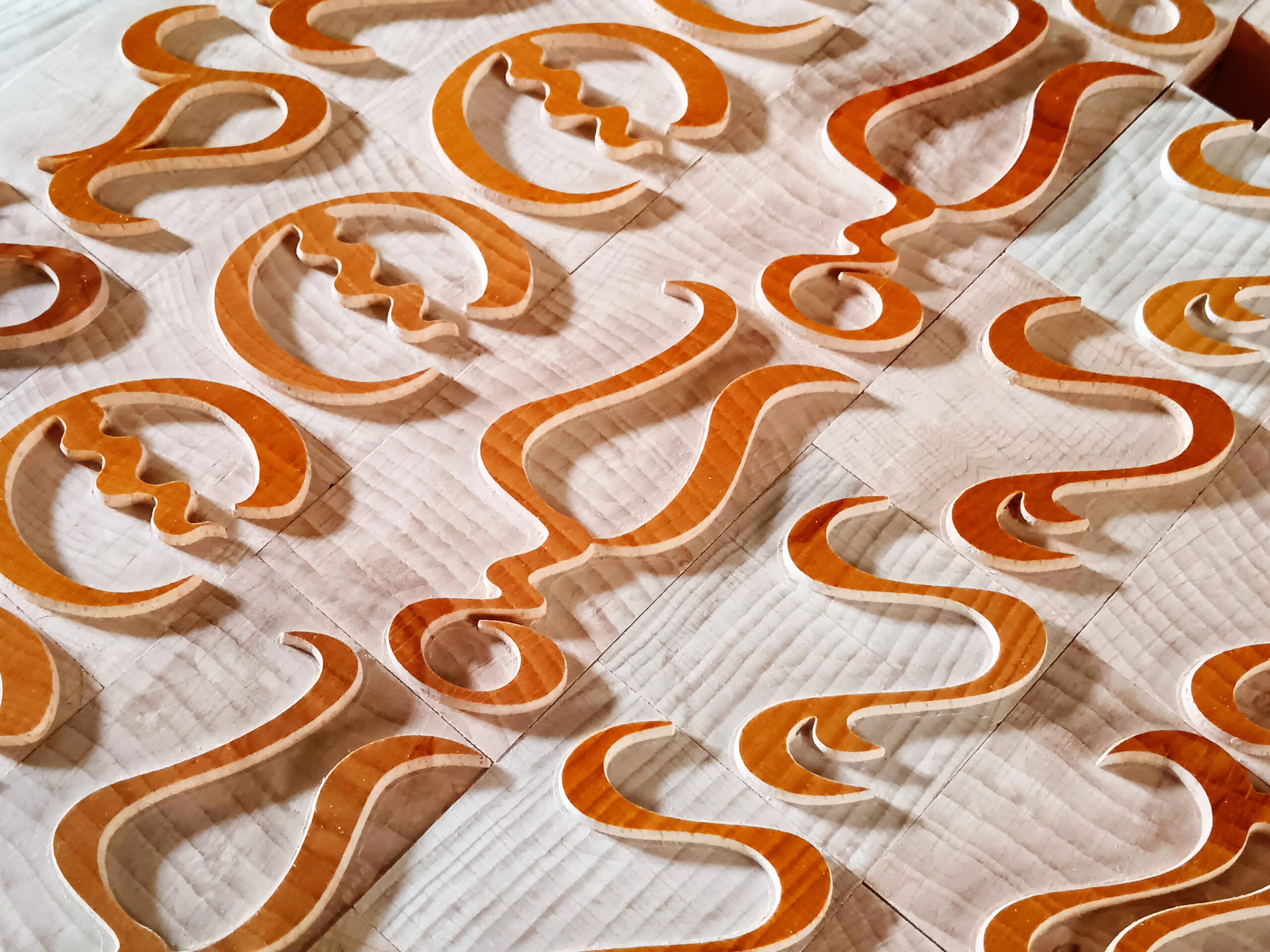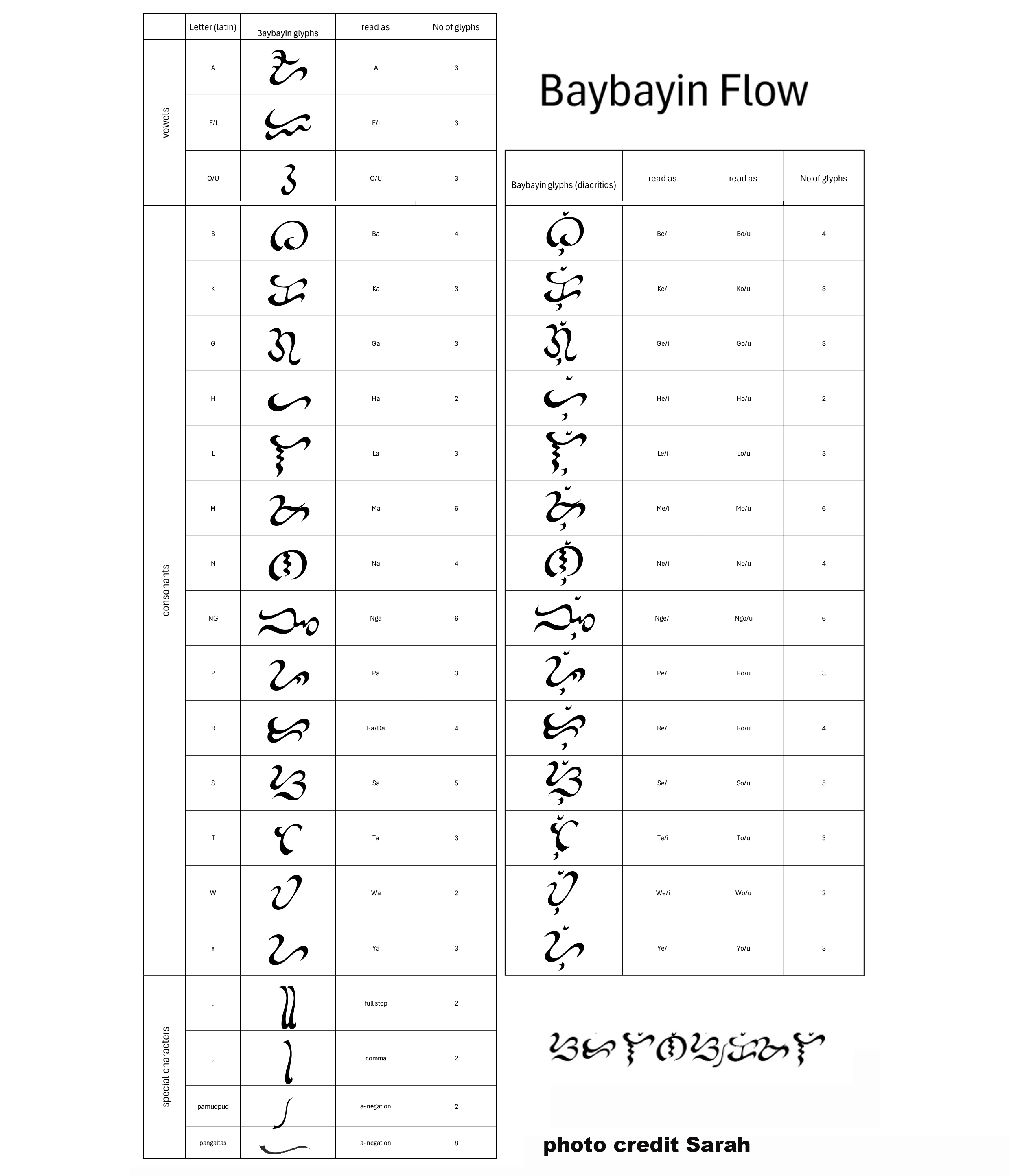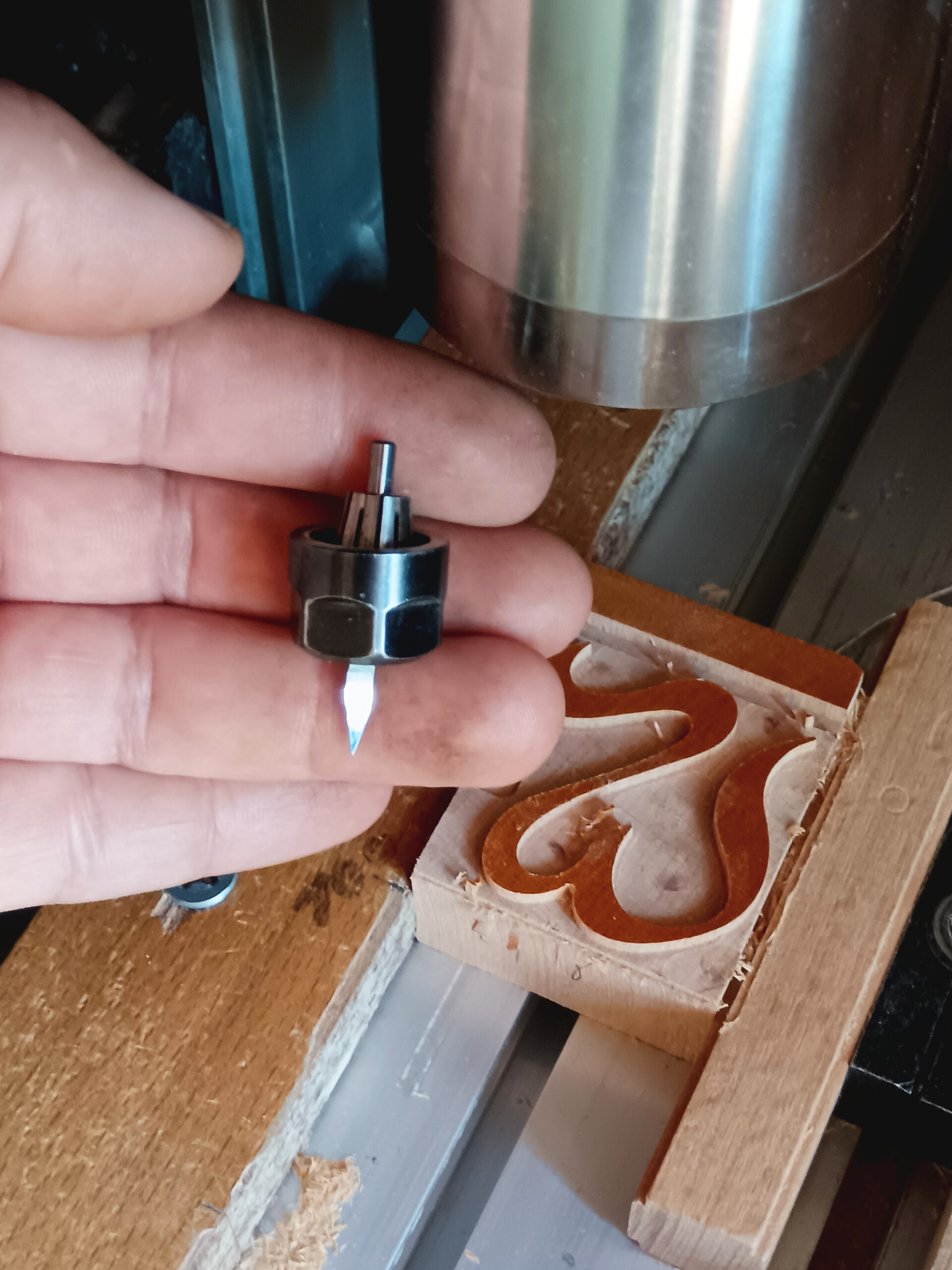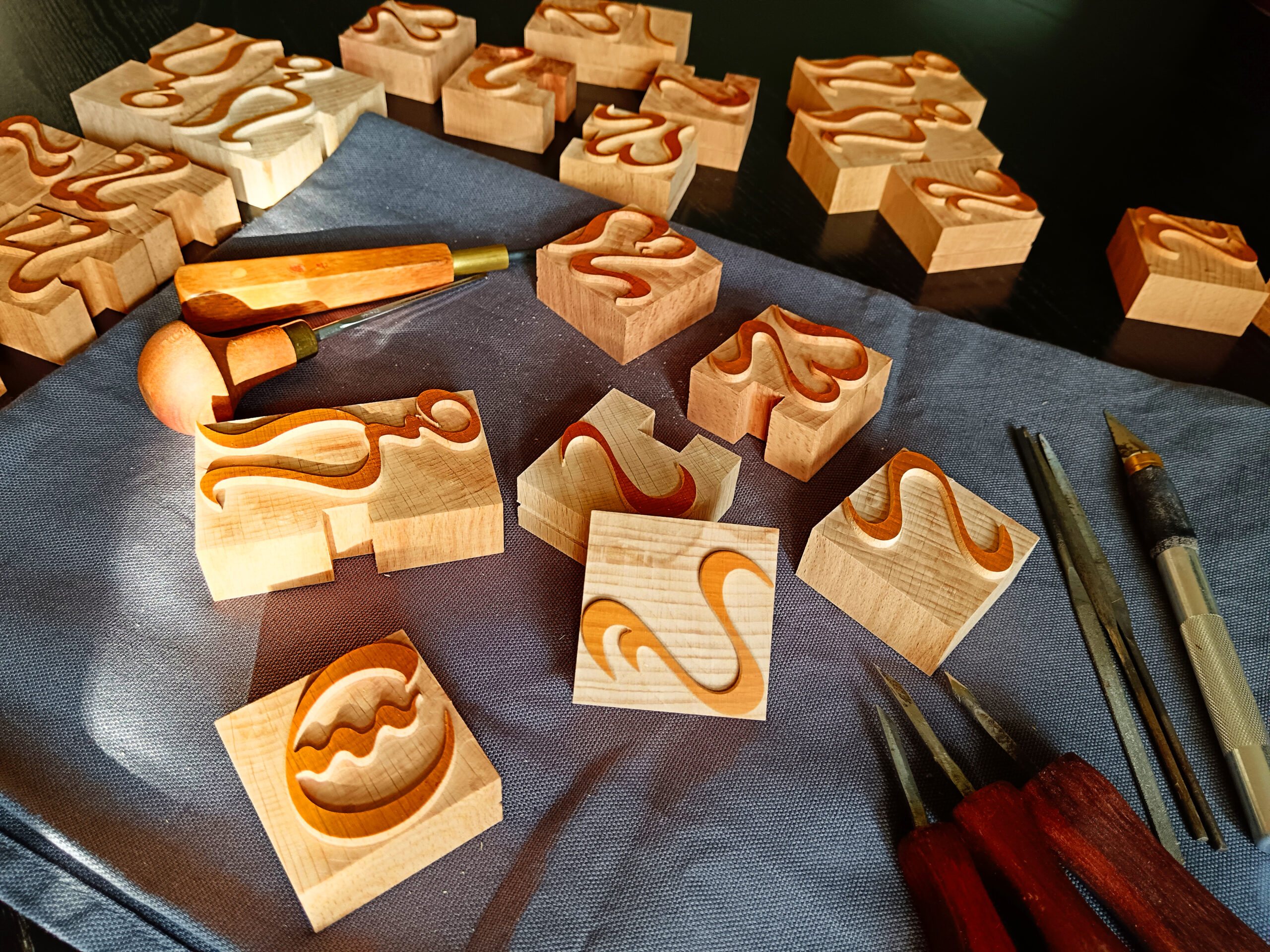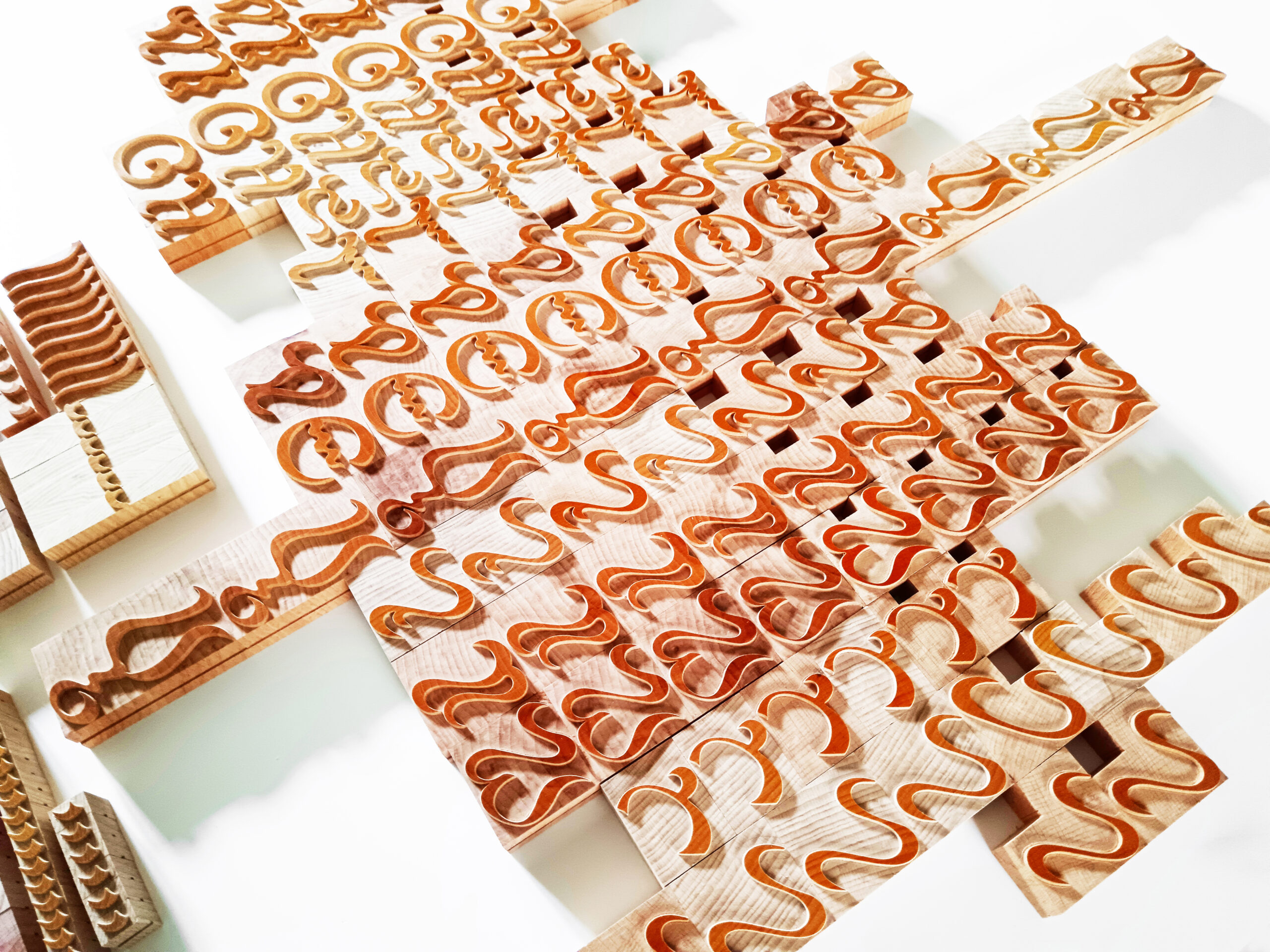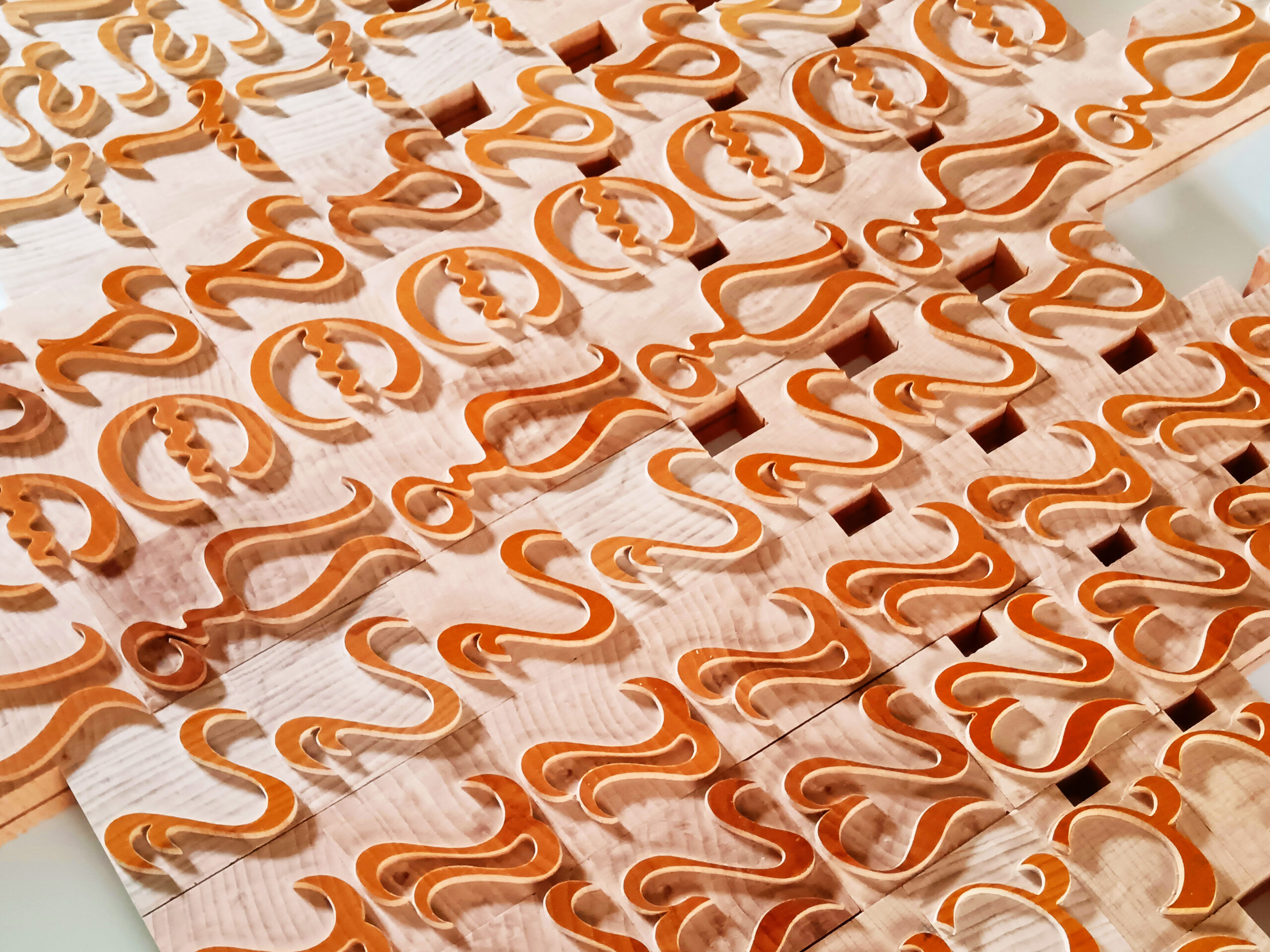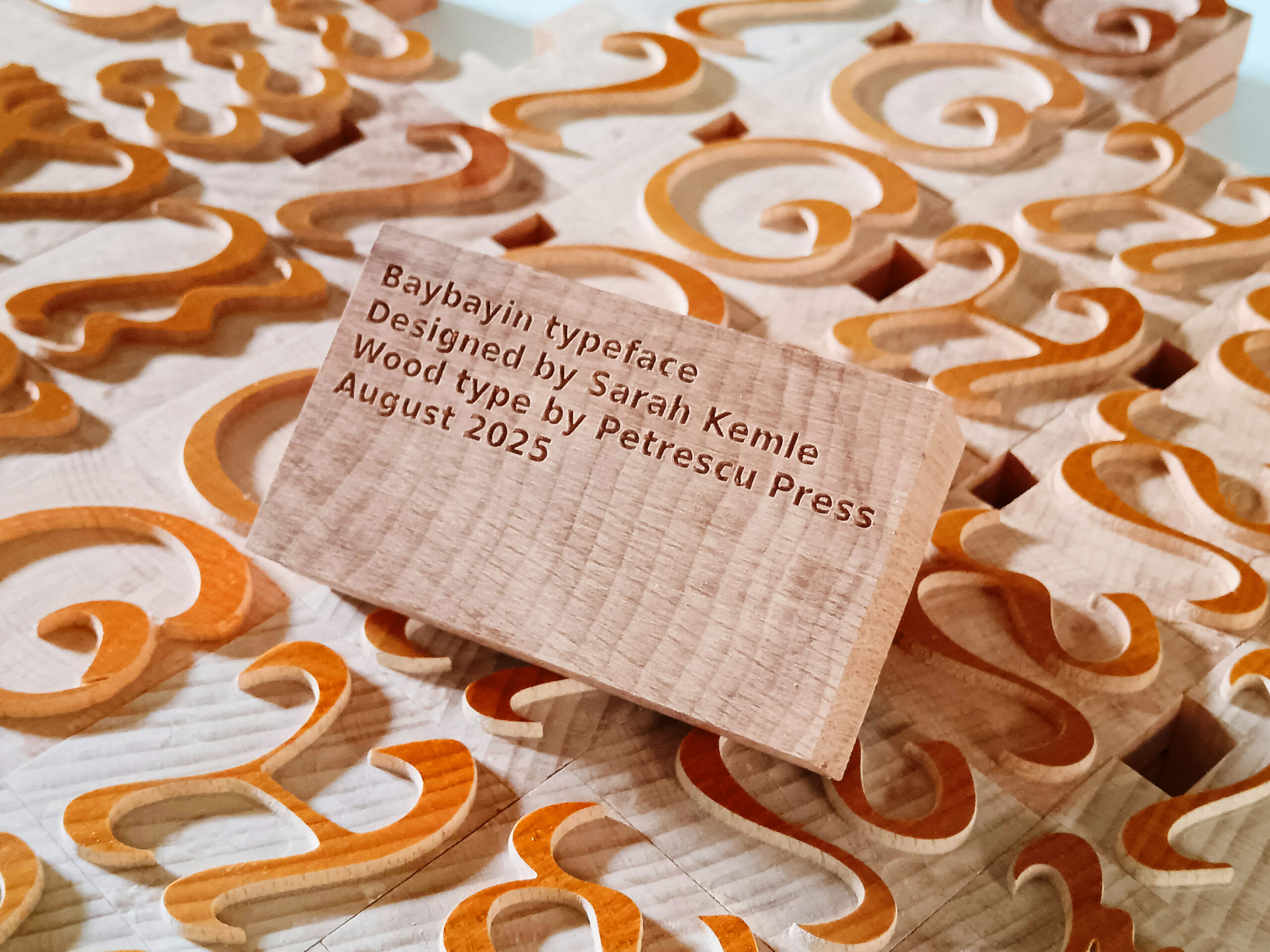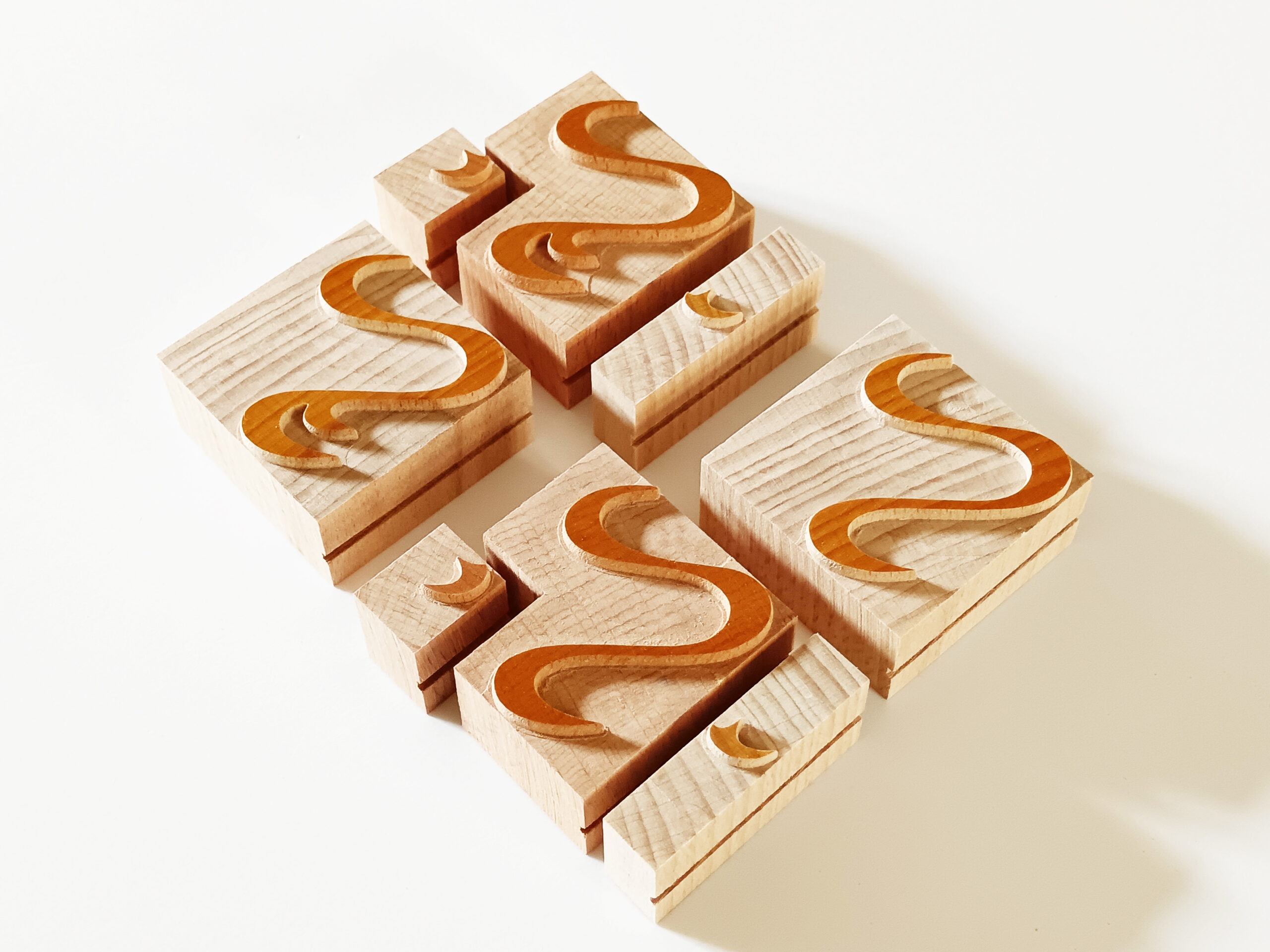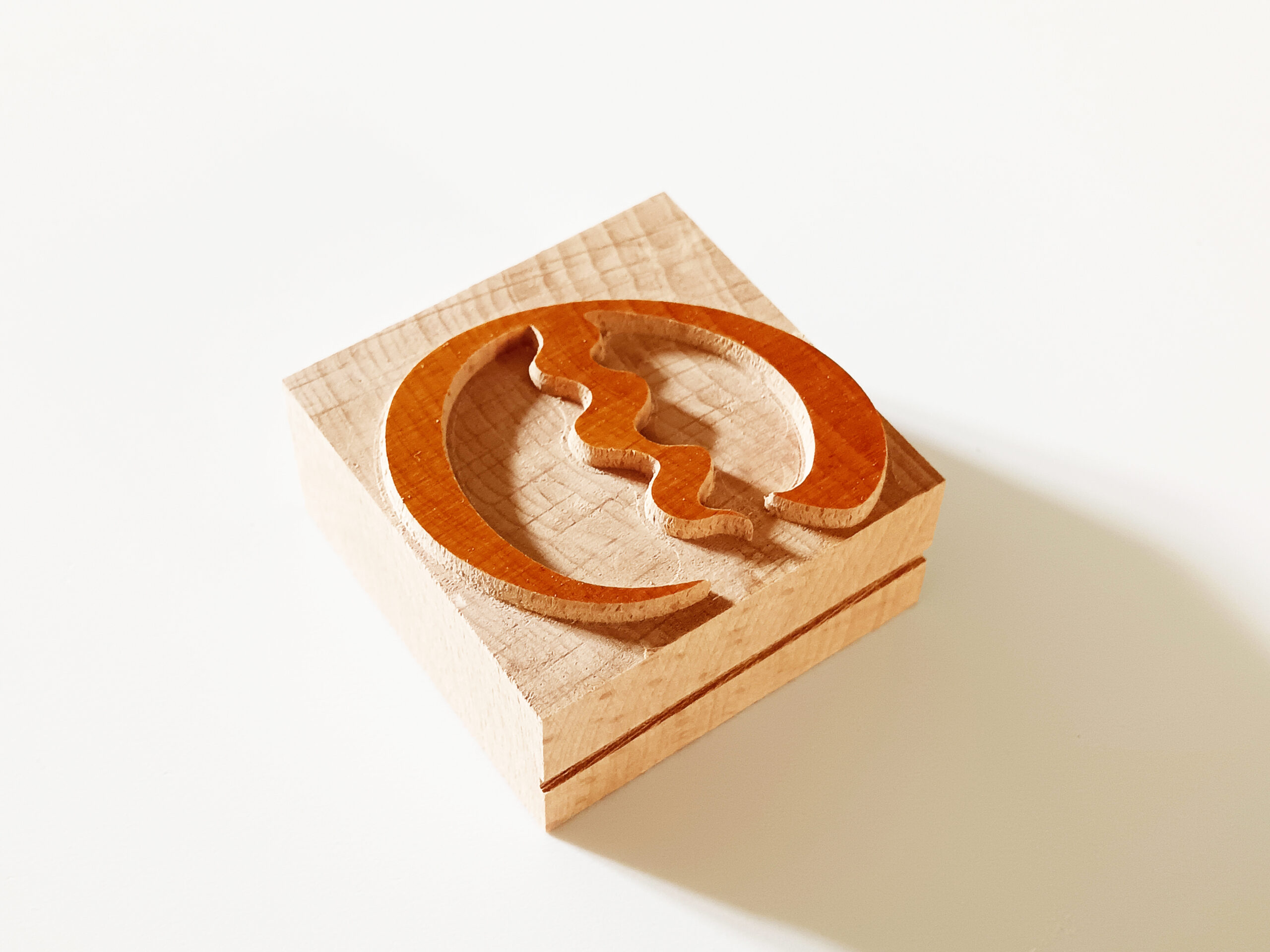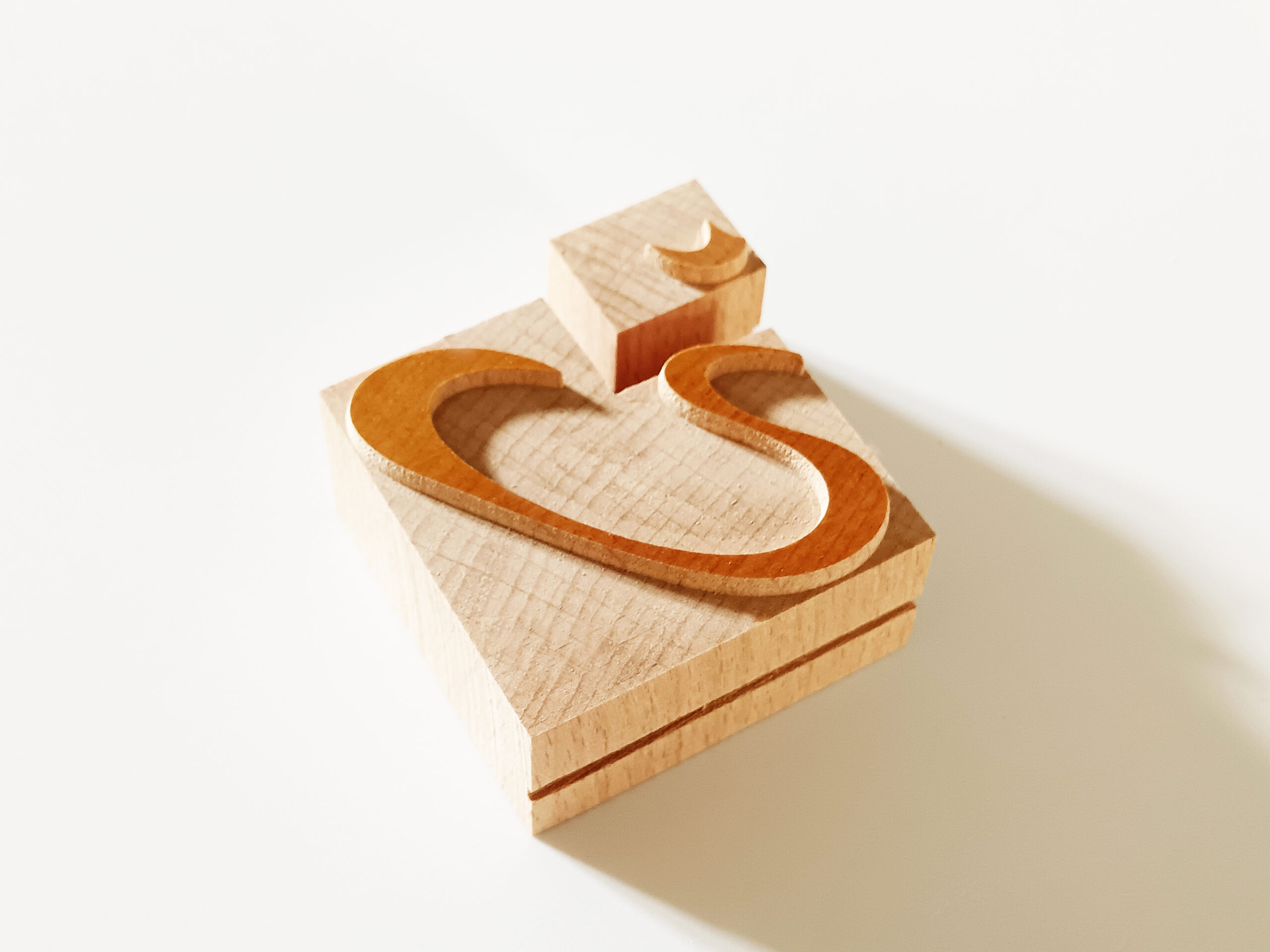
“Baybayin” wood type revived after a Chinese xylography from 1593
In the summer of 2025 we met Sarah Kemle from @slikcreative.studio located in Munich, through the Dutch printer Thomas Gravemaker @thomasgravemaker for a collaboration on the wood type production of the BayBayin typeface.
In the first phase, we sent Sarah some wood type samples that met all the design and manufacturing requirements and after she did a printing proofing together we decided the following: how close the characters and diacritics should be (kerning), the German type height of 23.56 mm and that the wood type should have a size of 10 cicero.
The challenge was the manual cutting with the electric saw for the characters that contained diacritics, similar to the one in the project: Slovak Wood Type with Diacritics
Sarah tells us the following about her project:
“I’m excited to connect with you both. I have been working on the Baybayin typeface since 2023, as part of my capstone project for “Design im Handwerk” at the Academy of Design, Chamber of Crafts in Munich. It started with calligraphy and has evolved into a working font. What makes this project historically significant is that Baybayin was never printed using movable type. There is just one book containing its characters the “Doctrina Christiana”, printed using xylography by the Chinese in 1593. That’s why I’m especially interested in the opportunity to create the first Baybayin wood type fonts.”
When Thomas Gravemaker @thomasgravemaker contacted us, he told us the following:
“Sarah has been working over the last few years on a type design of a script that was used before the Spanish conquered the Philippines and eradicated the original ways of writing. Last year we printed from polymer plates on the Grafix proof press, now she would like to get her typeface made in wood.”
I also want to say something about this project from behind the scenes.
During the conversion of the CAD design to CAM, after the router’s cutting there is the final step in which each piece passes through my hands to be cut at the sharp corners with a chisel, if necessary.
These are moments in which my eyes and hands follow in detail every undulation, modulation, vibration – each graceful curve of these organic wood type characters inspired by nature, in harmony with humanity, which were made at the end of the Middle Ages!!! And I really enjoyed doing this!
BayBayin typeface design by Sarah Kemle
Wood type by Petrescu Press, aug 2025